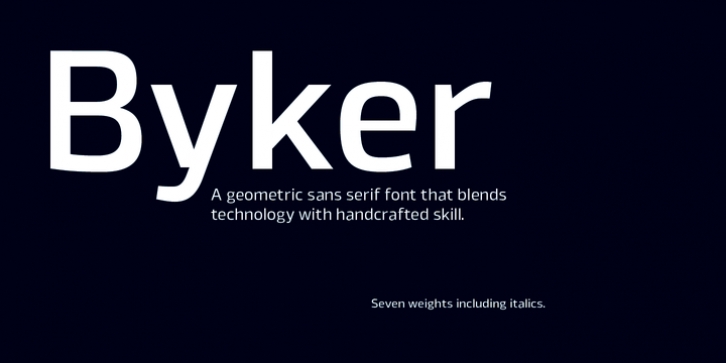
Byker was designed by Jonathan Hill and published by The Northern Block Ltd. Byker contains 14 styles and family package options.
Byker is a geometric sans serif font that blends technology with handcrafted skill. The letterforms are constructed digitally from a technical grid and overlaid with handmade curves. The combination of this process creates a strong, organic font that is precise with subtle movement and personality without being too clinical. Details include seven carefully chosen weights with true cursive italics, over 800 characters, alternative lowercase a, e, g and y. Seven variations of numerals, true small caps with accents, ligatures, manually edited kerning and Opentype features.